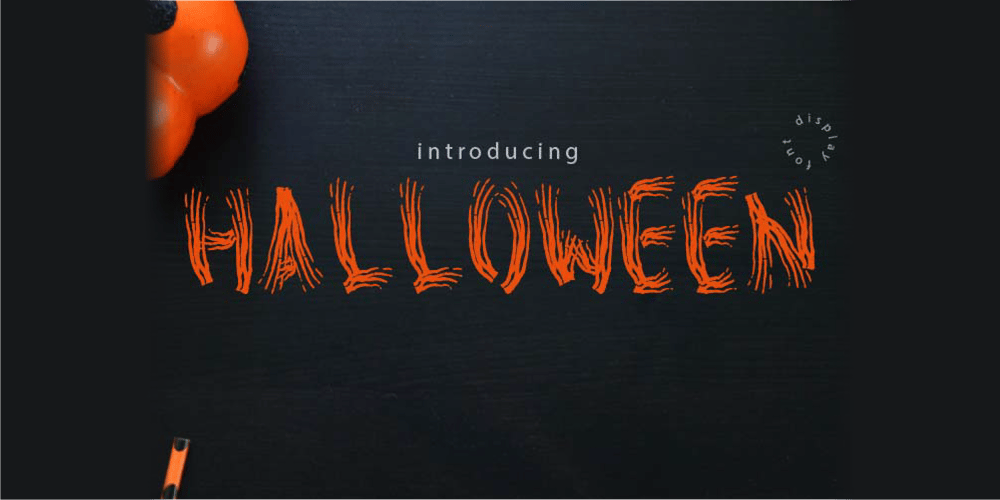
HALLOWEEN Horror Font Family was designed by Wahyu Aji Prasetyo and published by WAP Type. HALLOWEEN Horror contains 1 styles and family package options. handloween was inspired from gothic, scary, protest, and horror nuance.Features: Uppercase, Lowercase Punctuation & Number, Support in Mac and Windows OS Multilingual Support ÀÁÂÃÄÅÆÇÈÉÊËÌÍÎÏÐÑÒÓÔÕÖØÙÚÛÜÝ